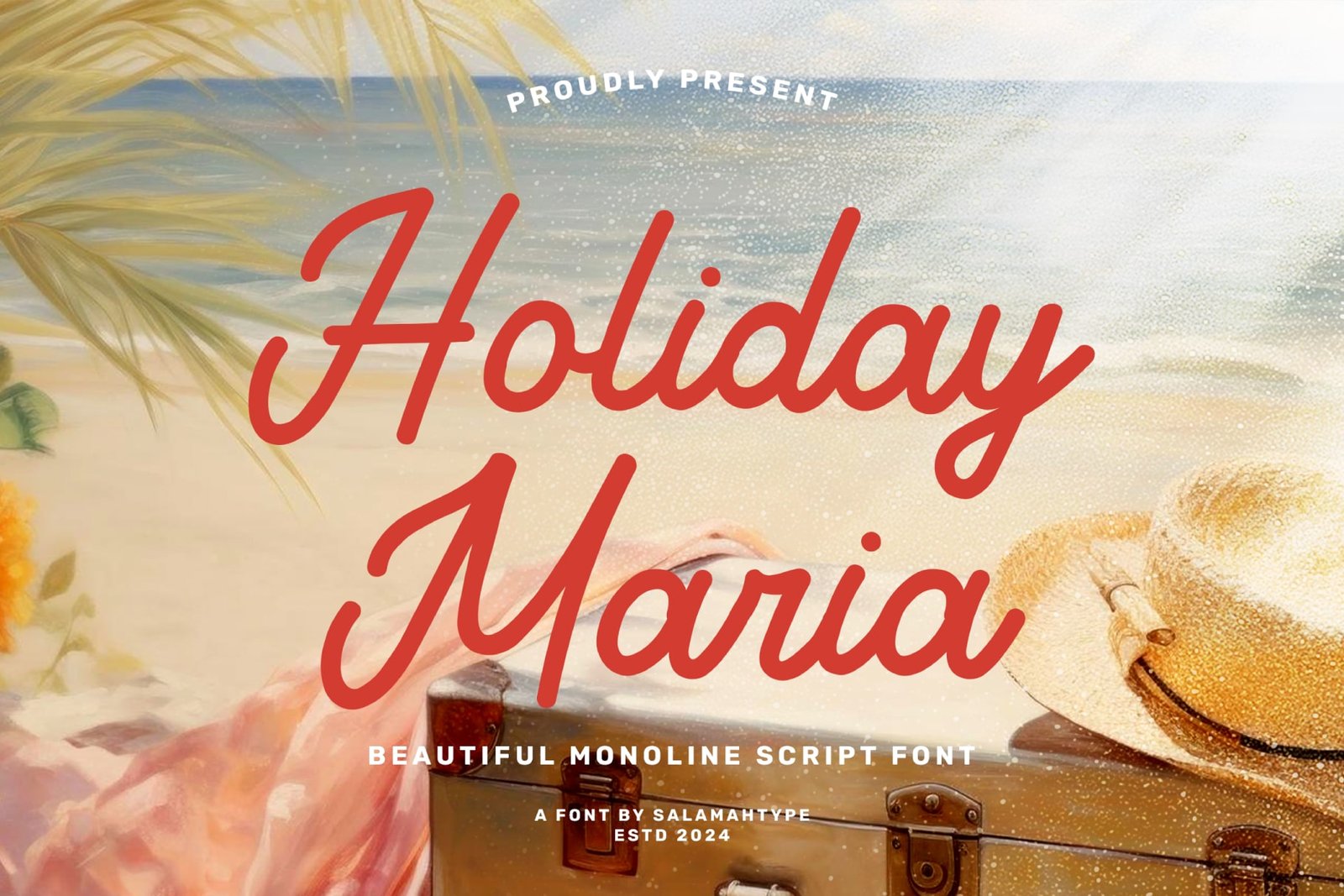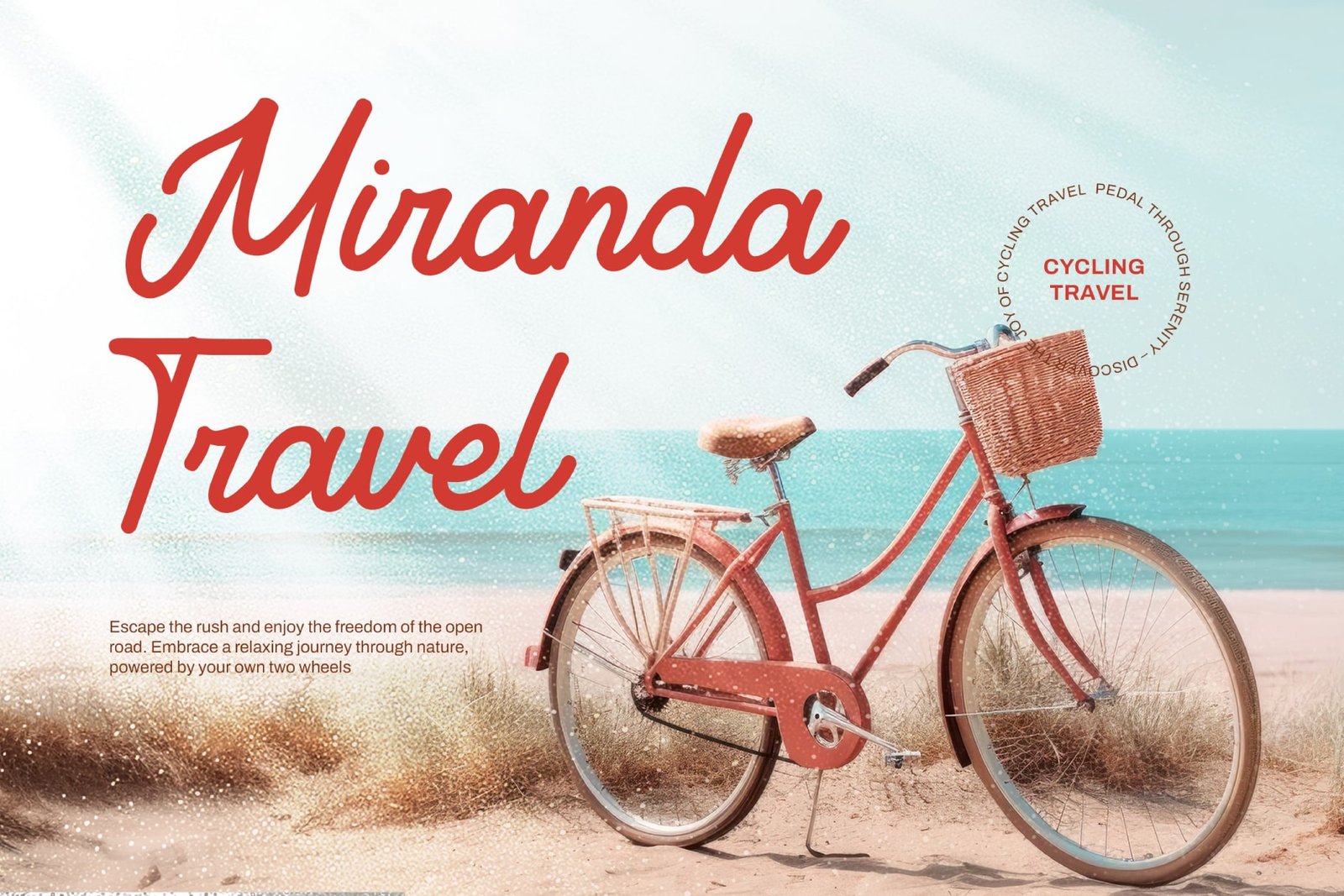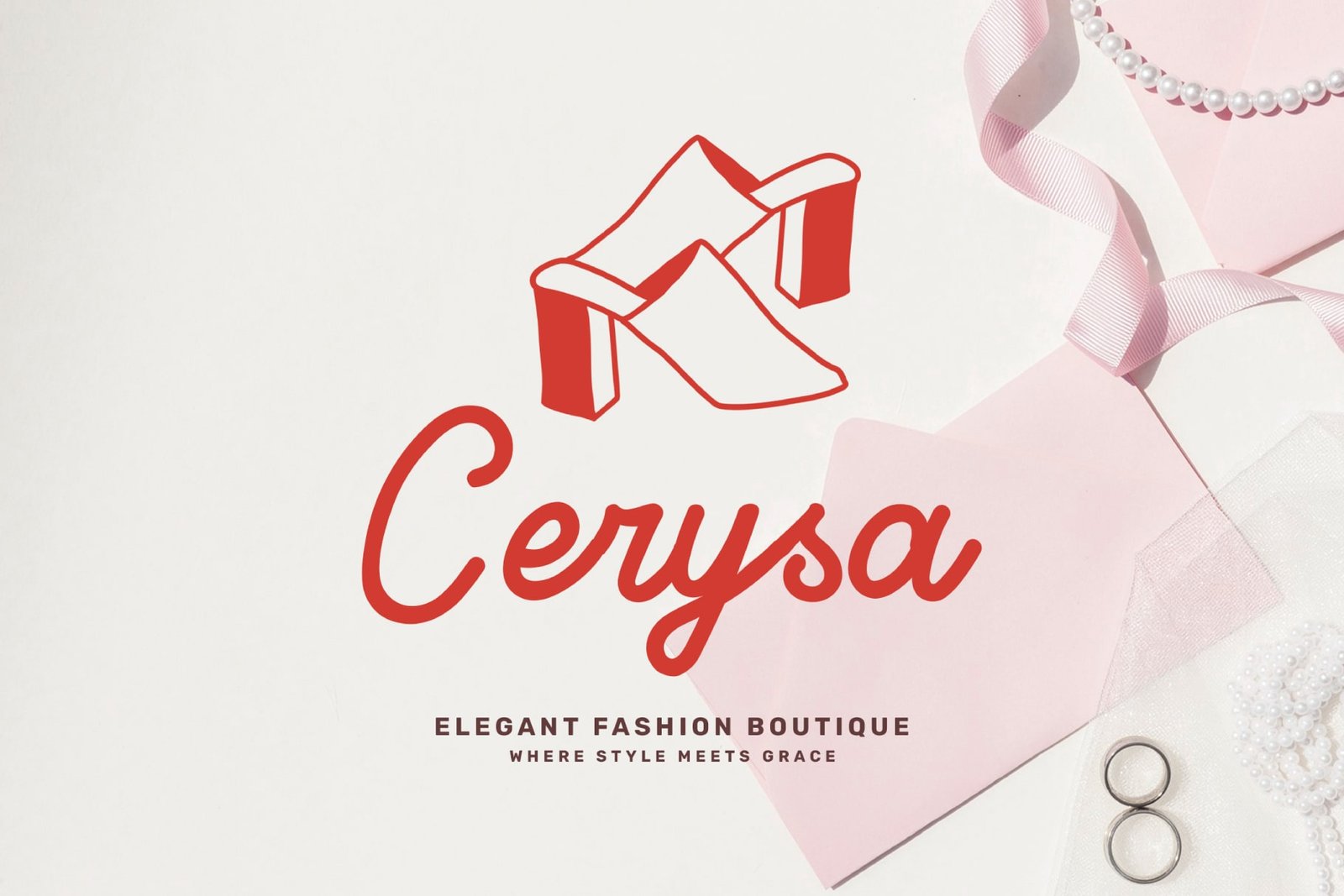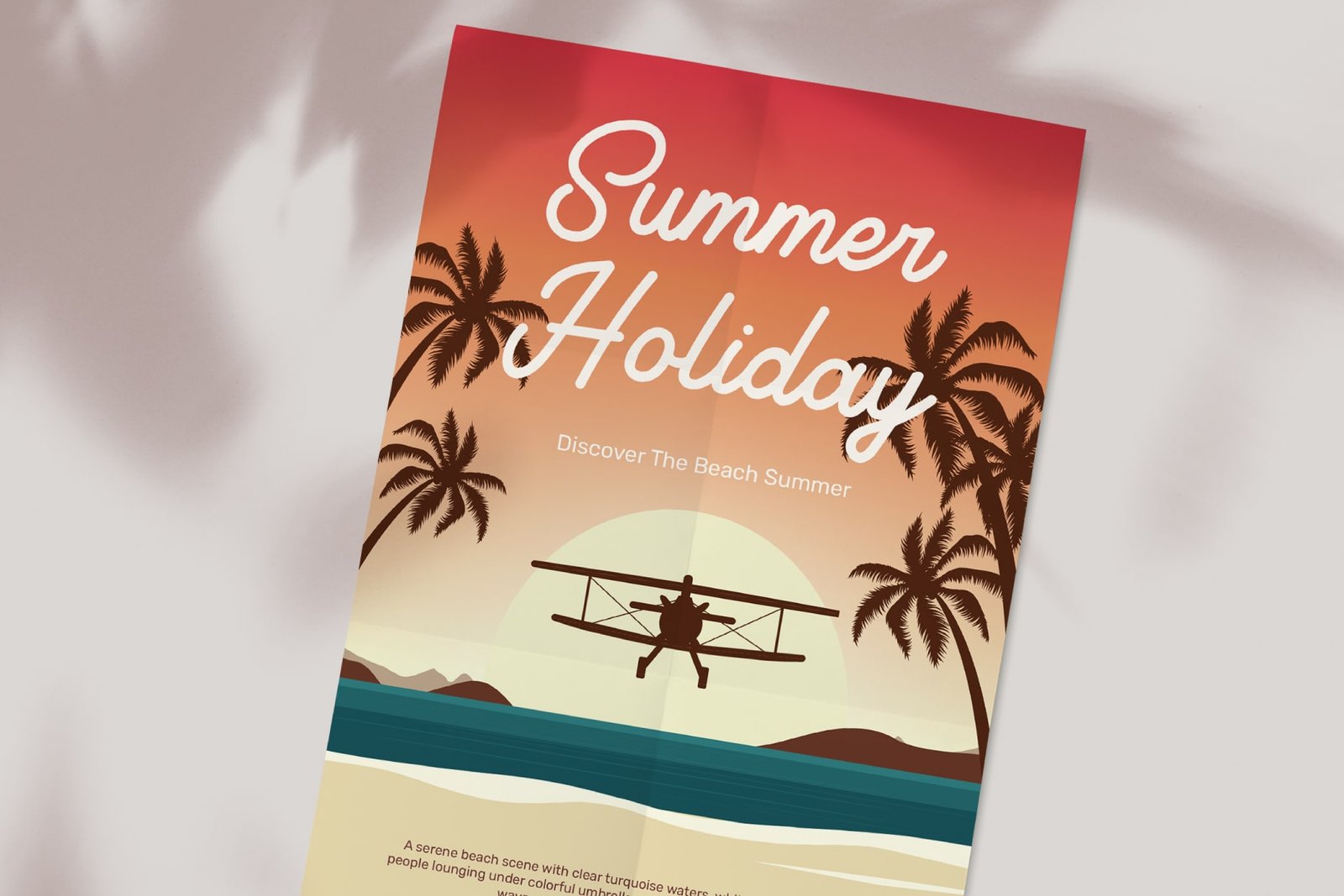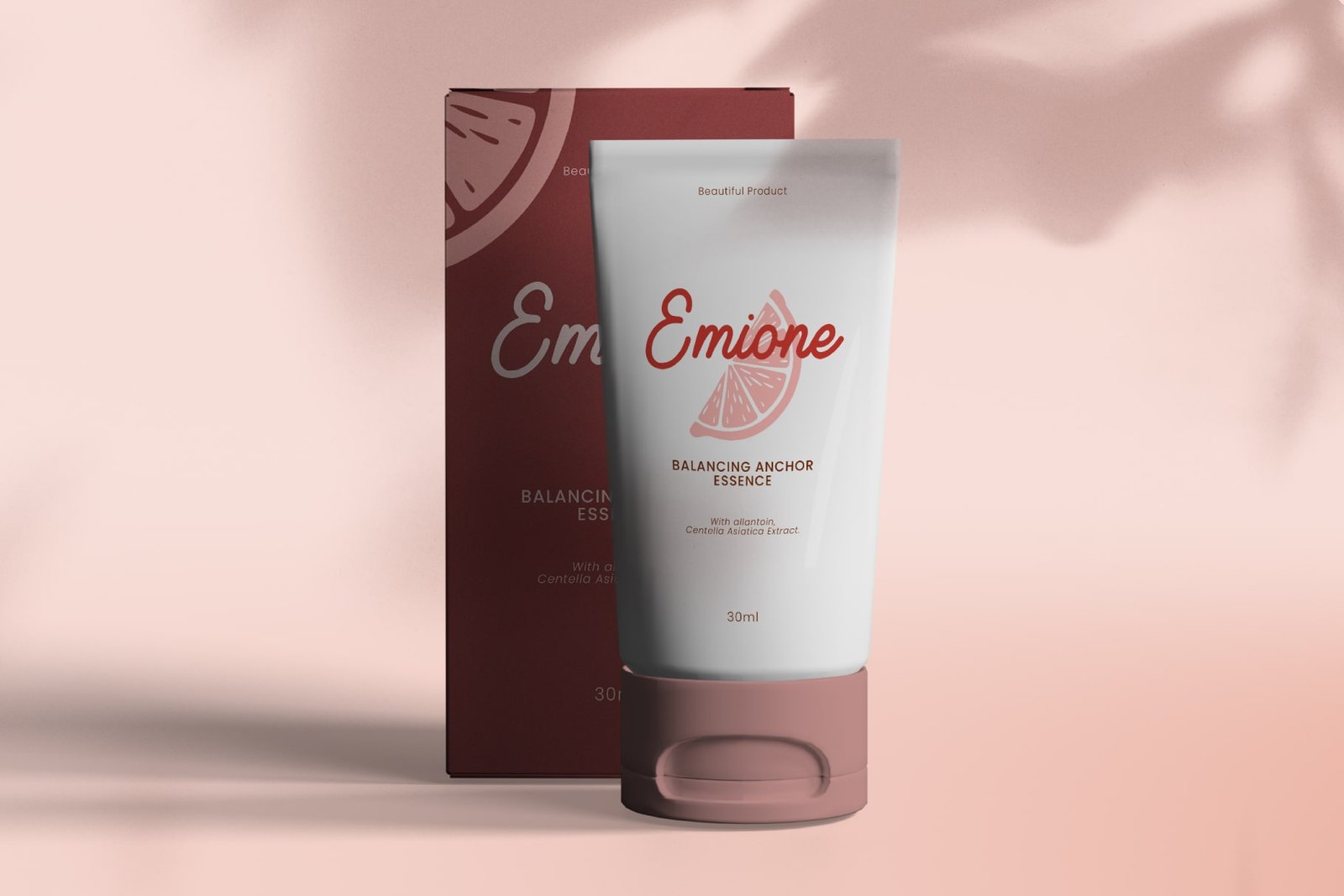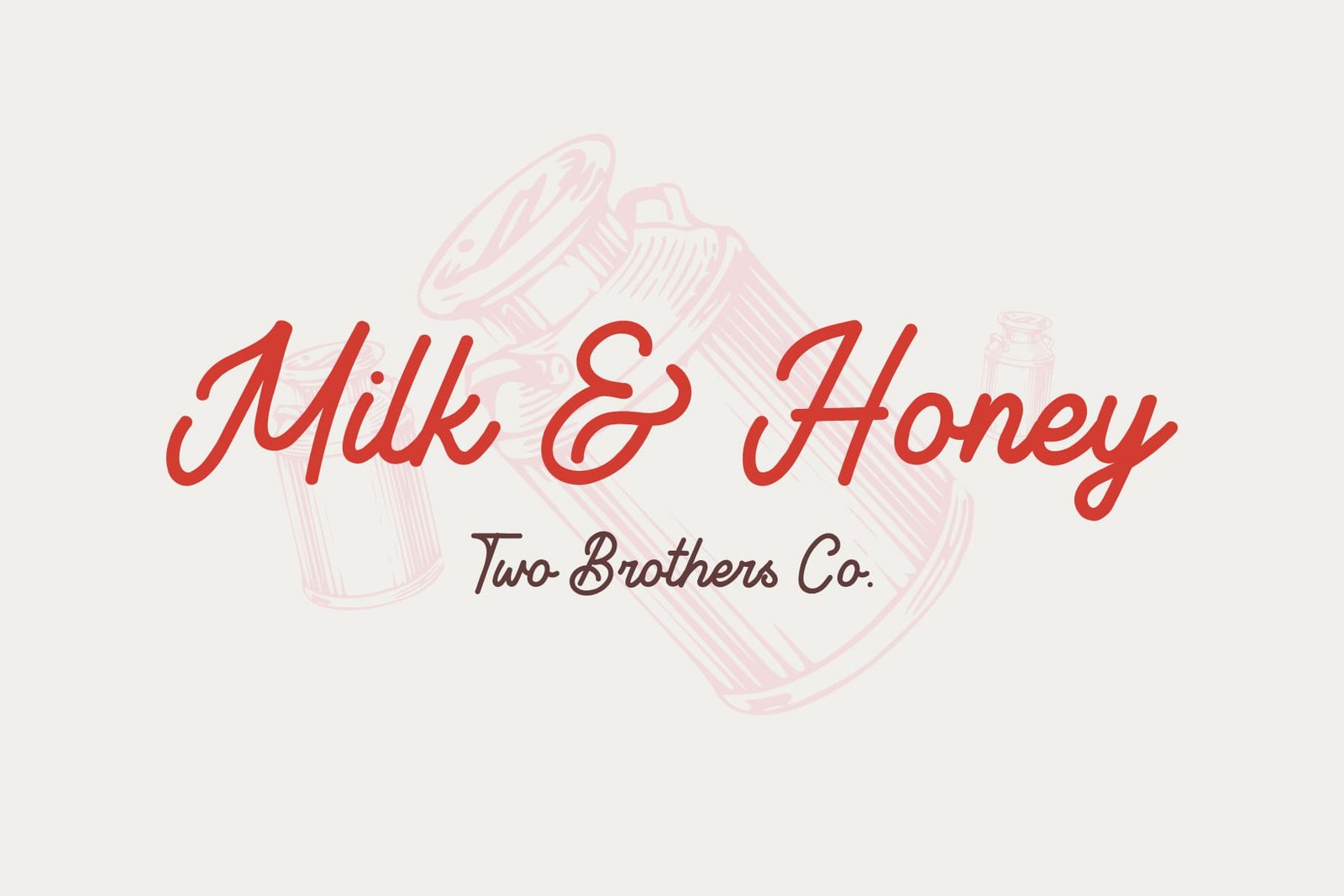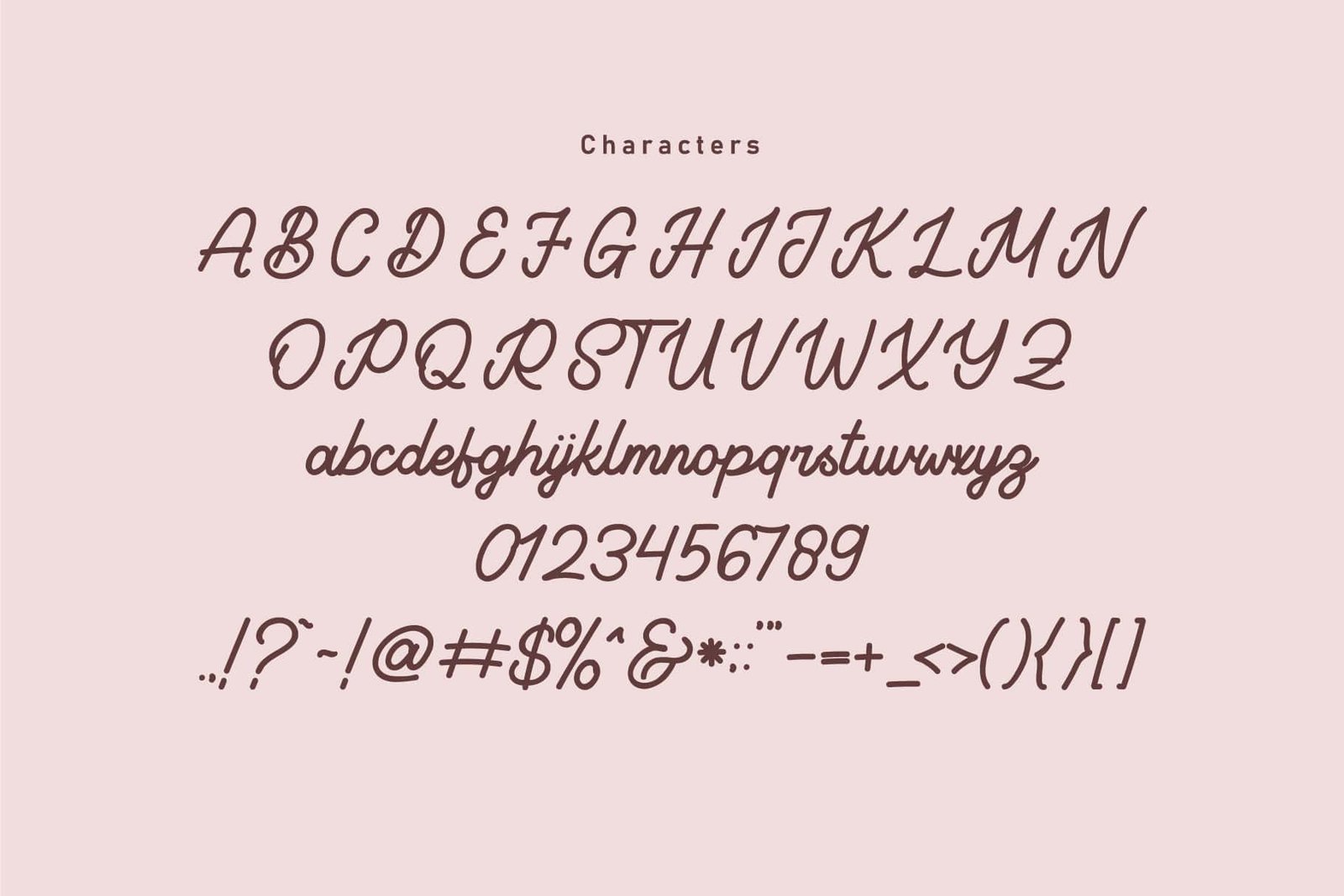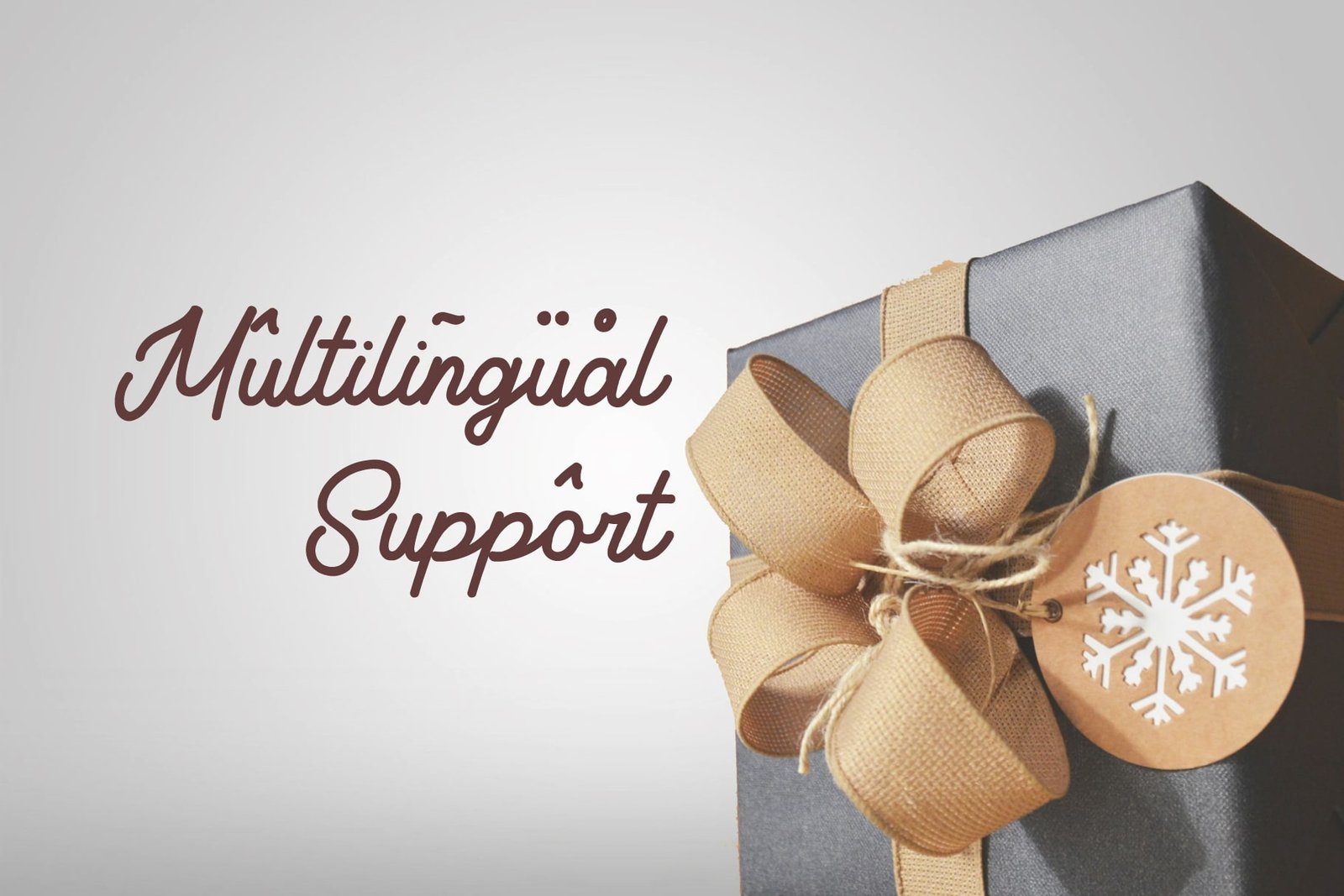
Holiday Maria
Introducing “Holiday Maria”, a cute and playful script font that’s perfect for adding a feminine touch to your designs. With its smooth curves and friendly style, Holiday Maria works beautifully for branding projects like logos, business cards, and packaging. It brings an elegant yet relaxed vibe, making it a great fit for beauty brands, lifestyle projects, and more.
Holiday Maria includes standard characters and multilingual support, making it versatile for any language. Ideal for wedding invitations, boutique branding, or any creative project that needs a professional yet charming look!
Features :
- Uppercase and lowercase
- Numbers and punctuation
- Multilingual